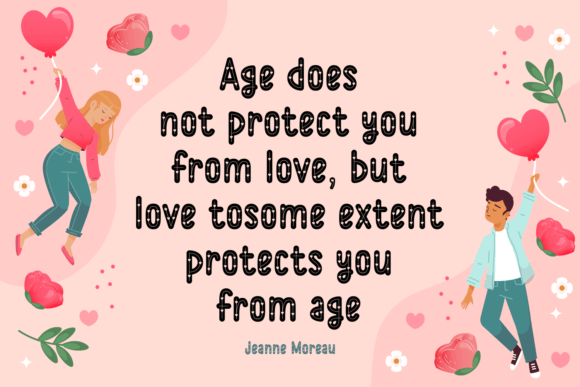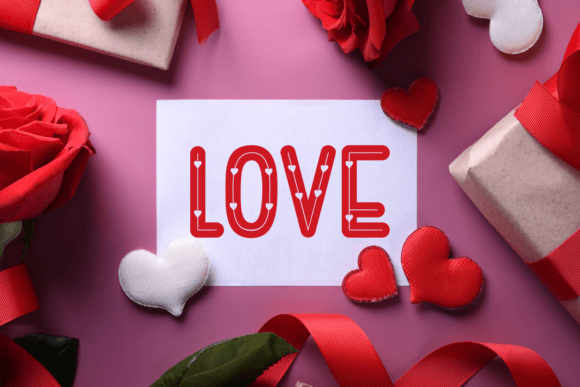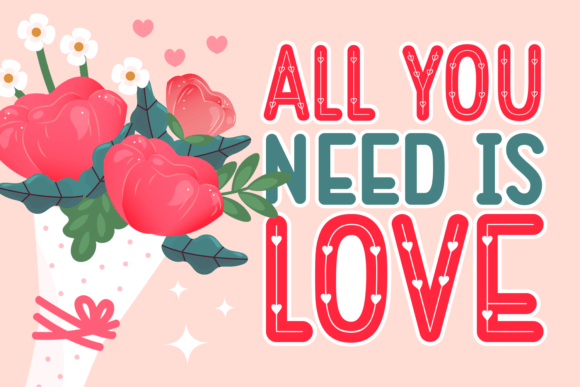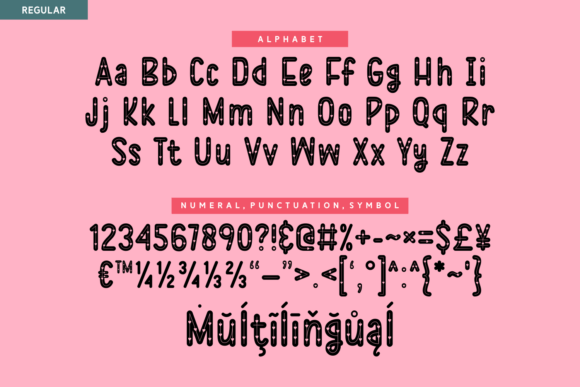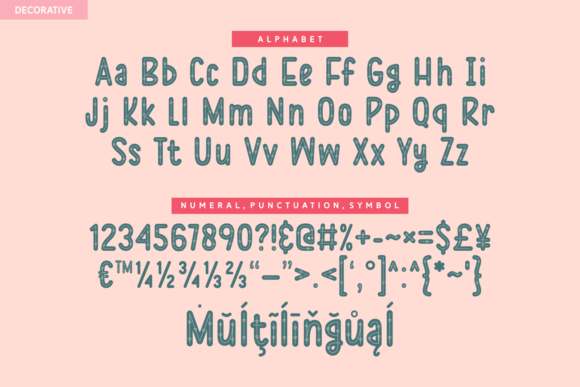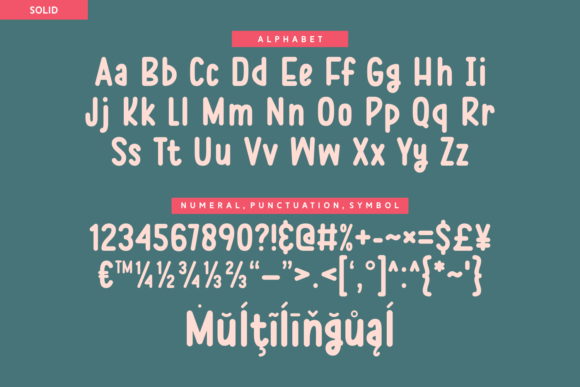
Introducing From Your Heart Font: Add a Touch of Cuteness to Your Designs
Are you tired of using the same old fonts for your designs? Do you want to add a touch of cuteness and personality to your posters, greeting cards, t-shirts, and branding materials? Look no further than the From Your Heart Font! This adorable font is perfect for crafters, designers, and anyone looking to add a little extra charm to their projects.
What Makes From Your Heart Font So Special?
From Your Heart Font is a unique and playful font that is sure to make your messages stand out. With its cute and whimsical design, this font is perfect for a variety of projects, including:
- Posters: Add a touch of personality to your posters with this fun and playful font.
- Greeting cards: Make your greeting cards extra special with this adorable font.
- T-shirts: Create eye-catching and unique designs for your t-shirts with From Your Heart Font.
- Branding materials: Add a touch of whimsy to your branding materials, such as business cards and brochures.
- Quotes: Make your quotes extra special with this beautiful and playful font.
The Benefits of Using From Your Heart Font
From Your Heart Font offers a range of benefits for designers and crafters, including:
- Cute and playful design: This font is designed to be super cute and playful, making it perfect for adding a touch of personality to your designs.
- PUA encoded: This font is PUA encoded, which means you can access all of the amazing glyphs and ligatures with ease.
- Versatile: This font can be used for a wide range of projects, from posters and greeting cards to t-shirts and branding materials.
PUA (Private Use Area) encoding is a way of encoding fonts that allows for the inclusion of additional glyphs and ligatures. This means that with From Your Heart Font, you can access a wide range of extra characters and symbols that can be used to add a touch of personality to your designs.
With PUA encoding, you can:
- Access a wide range of glyphs and ligatures
- Create unique and custom designs
- Add a touch of personality to your projects
If you’re looking for a font that will add a touch of cuteness and personality to your designs, look no further than From Your Heart Font. With its playful design, PUA encoding, and ease of use, this font is perfect for designers and crafters of all levels. So why wait? Download From Your Heart Font today and start creating amazing projects!
With this font, your messages will become really super cute. This font is perfect for posters, greeting cards, t-shirts, branding materials, quotes, and any other amazing projects you are working on. This font is PUA encoded which means you can access all of the amazing glyphs and ligatures with ease!